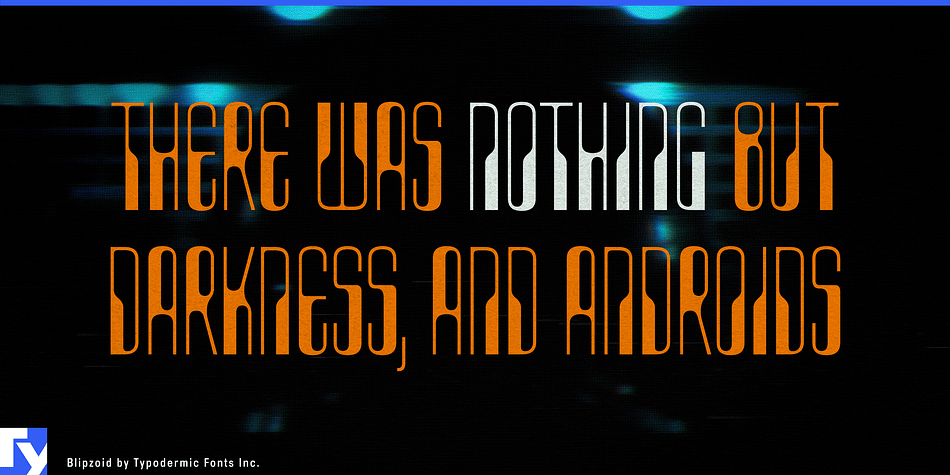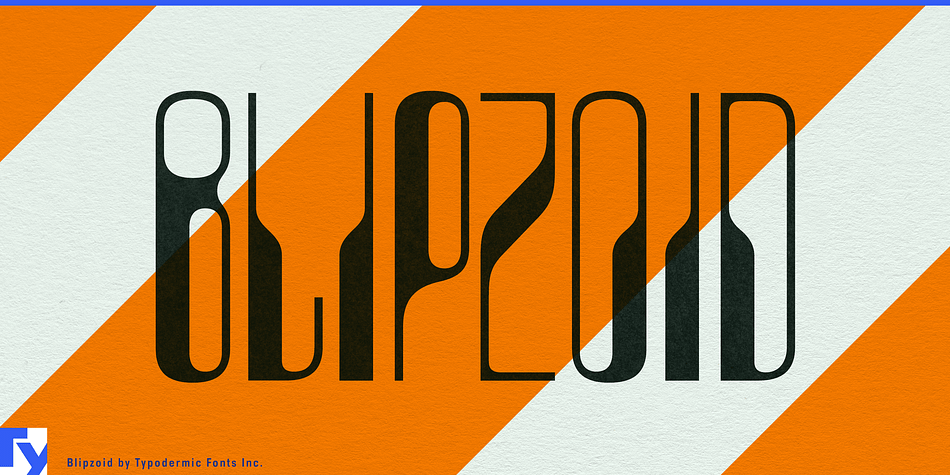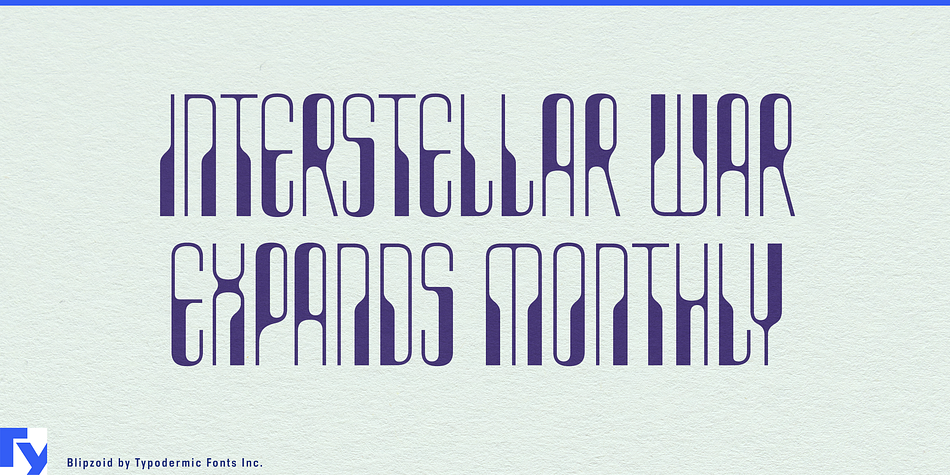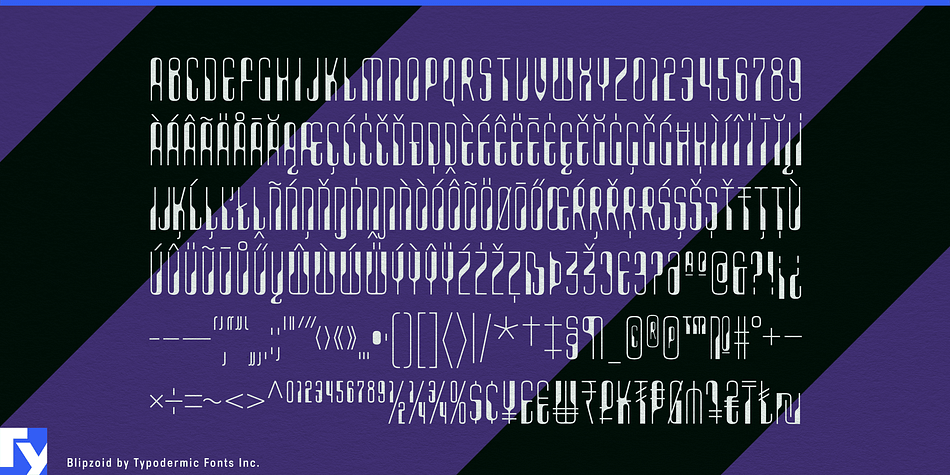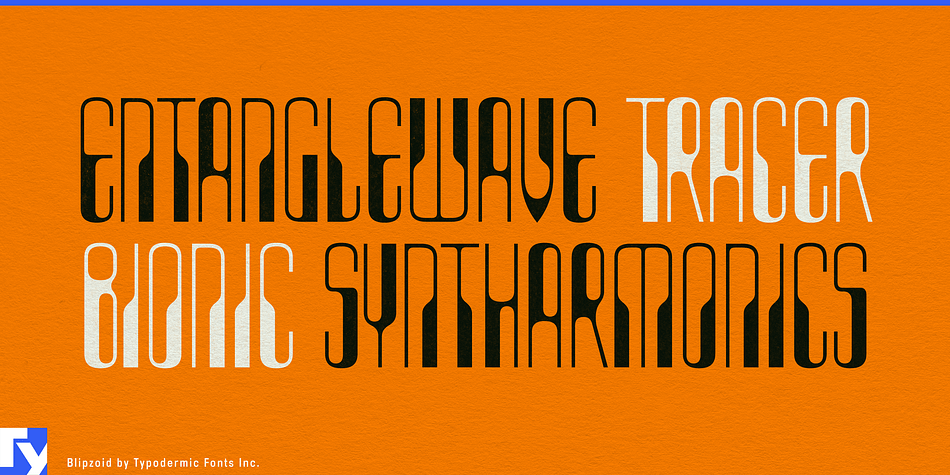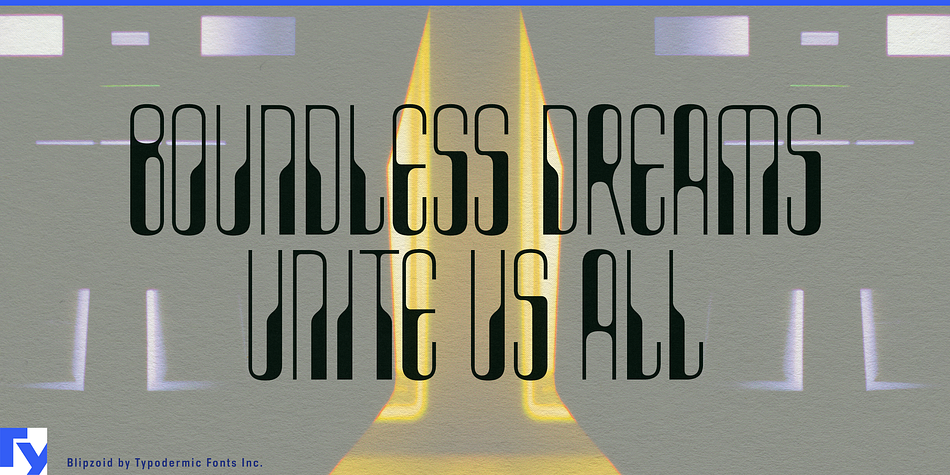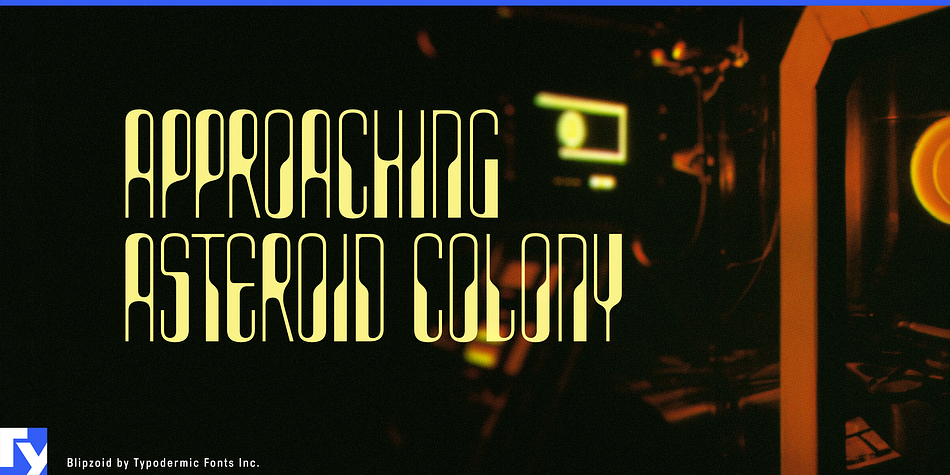
BLIPZOID
Designed by Ray Larabie, Blipzoid is a display sans and retro font family published by Typodermic Fonts Inc.
Discover Blipzoid: a one-of-a-kind typeface that fuses the elegance of art deco with the futuristic allure of 1960s sci-fi. This compact display font offers a captivating blend of sleek geometric shapes, striking contrast, and magnetic ink-inspired characters, creating a truly unique visual experience.
Step into a world where high-fashion meets pulp sci-fi, where the luxurious essence of art deco converges with the daring imagination of vintage science fiction. Blipzoid’s distinct letterforms effortlessly adapt to your project’s context, delivering an otherworldly ambiance or an air of sophistication reminiscent of haute-couture fashion.
Embrace the dual nature of Blipzoid in your next project, and let it transport your message to a realm of opulence and enigmatic futurism. Elevate your designs with this extraordinary typeface that seamlessly melds Carnaby Street’s 1960s mod aesthetic with the mysterious allure of uncharted galaxies.